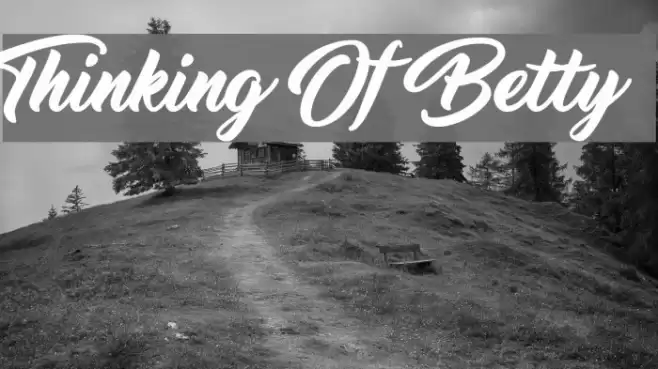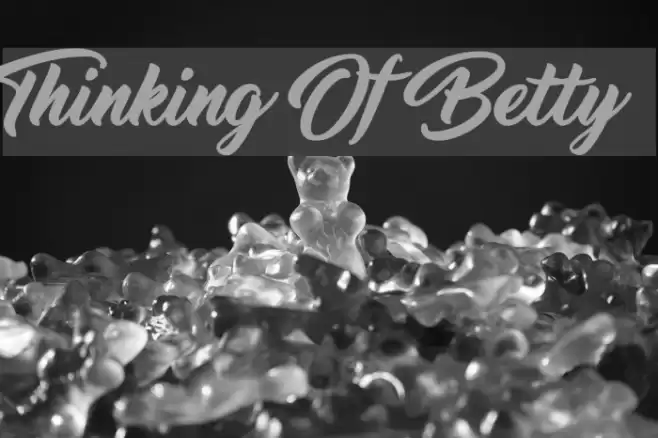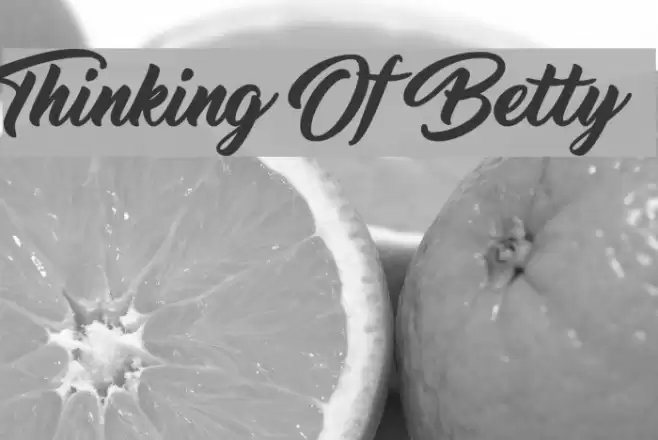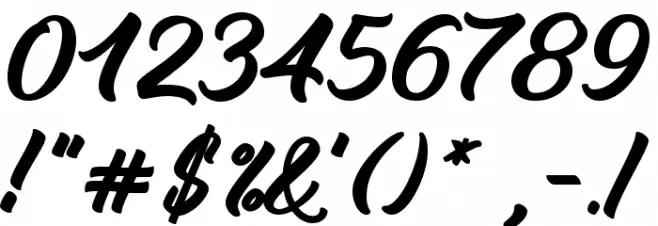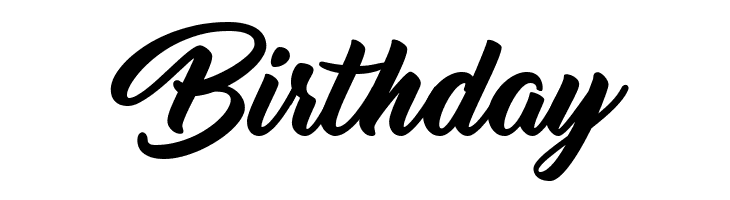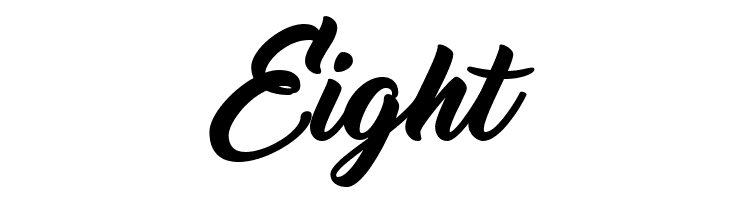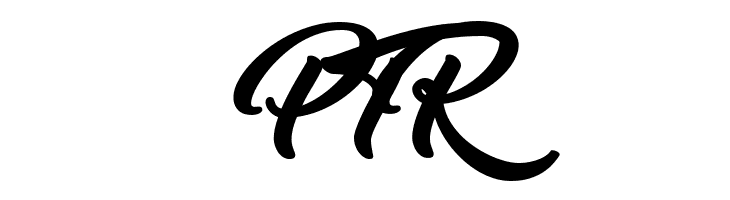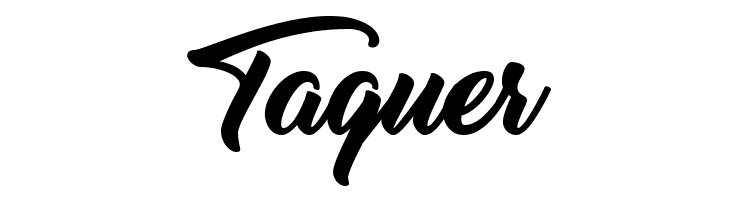
Thinking Of Betty Font
Thinking Of Betty Description
This font exhibits a bold and expressive script style, characterized by its flowing, cursive letters that mimic the fluidity of handwriting. The uppercase letters are ornate, with dramatic flourishes and loops, while the lowercase letters maintain a consistent, rounded form that complements the uppercase. The numbers and special characters are designed with the same attention to detail, ensuring a cohesive look across all characters. The overall appearance is dynamic and elegant, making it suitable for projects that require a touch of sophistication and personality.
A bold, expressive script font with flowing, cursive letters.
- Proposed Projects: Ideal for wedding invitations, greeting cards, branding, and logo design.
- Category: Script
- Use Case: Logos, Headlines, Invitations